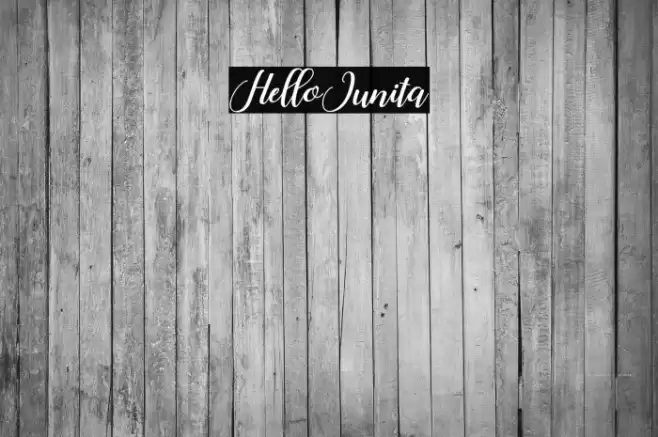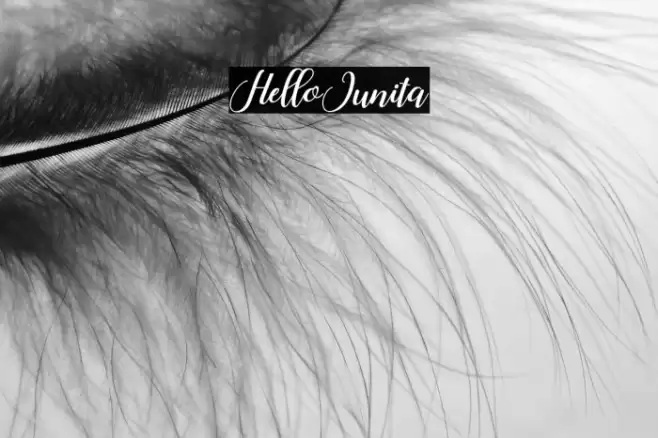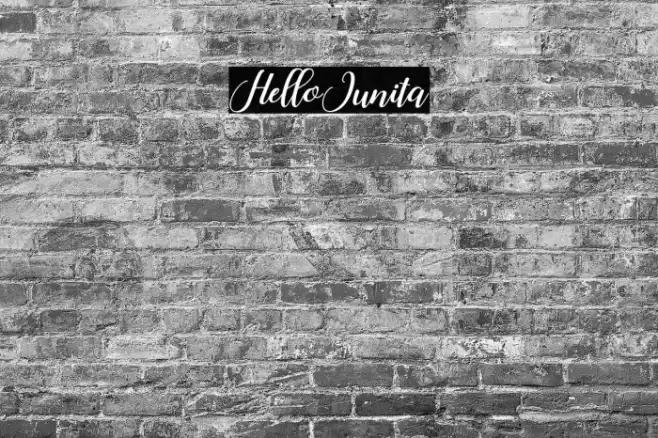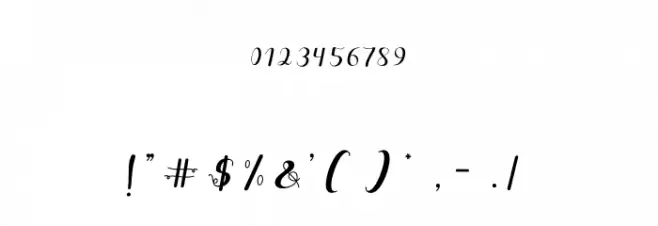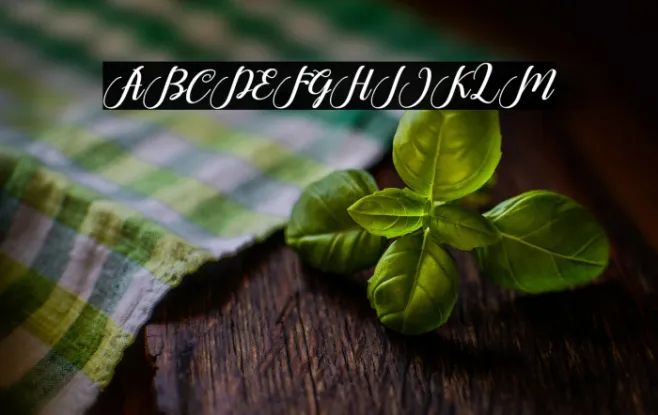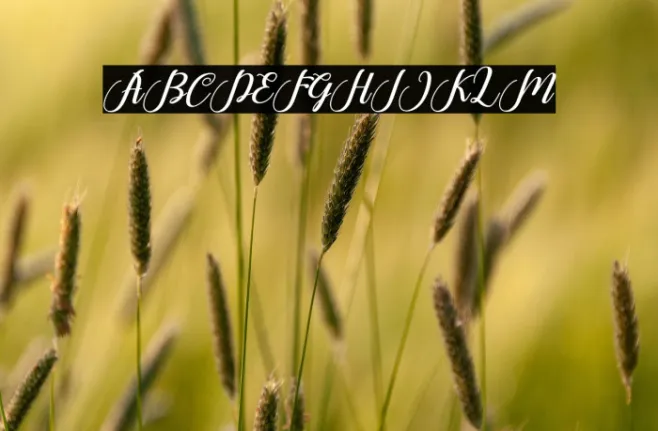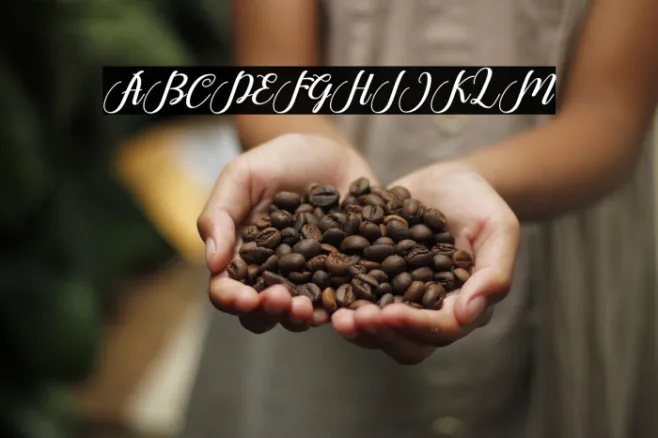
HelloJunita Font
HelloJunita Description
This elegant script font features flowing, cursive letters with a sophisticated and graceful appearance. The uppercase letters are particularly ornate, with sweeping curves and flourishes that add a touch of luxury and refinement. The lowercase letters maintain a consistent style, offering a seamless and fluid connection between characters. The numerals are slightly more restrained but still carry the same elegant touch. Special characters are designed to match the overall aesthetic, ensuring a cohesive look across all text elements. This font is perfect for projects that require a touch of elegance and sophistication.
An elegant script font with flowing, cursive letters and ornate uppercase characters from Regular fonts.
- Proposed Projects: Ideal for wedding invitations, luxury branding, elegant stationery, and high-end product packaging.
- Overall Style: Elegant
- Use Case: Logos, Invitations, Branding